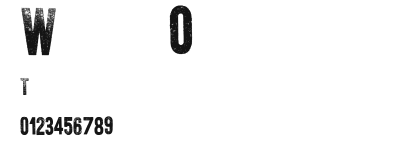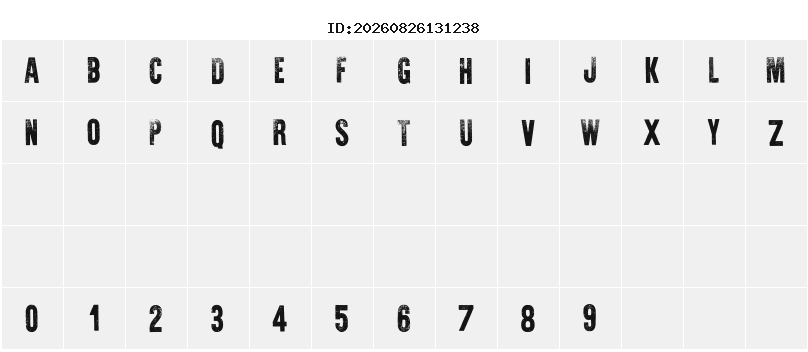
War is Over Preview
• Font Name: War is Over
• Full Font Name: War is Over
• Designer: IMAGEX
About War is Over.ttf
War is Over.ttf is a modern, elegant sans-serif font designed for ultimate readability and visual harmony. Perfect for branding, headlines, web design, and print materials.